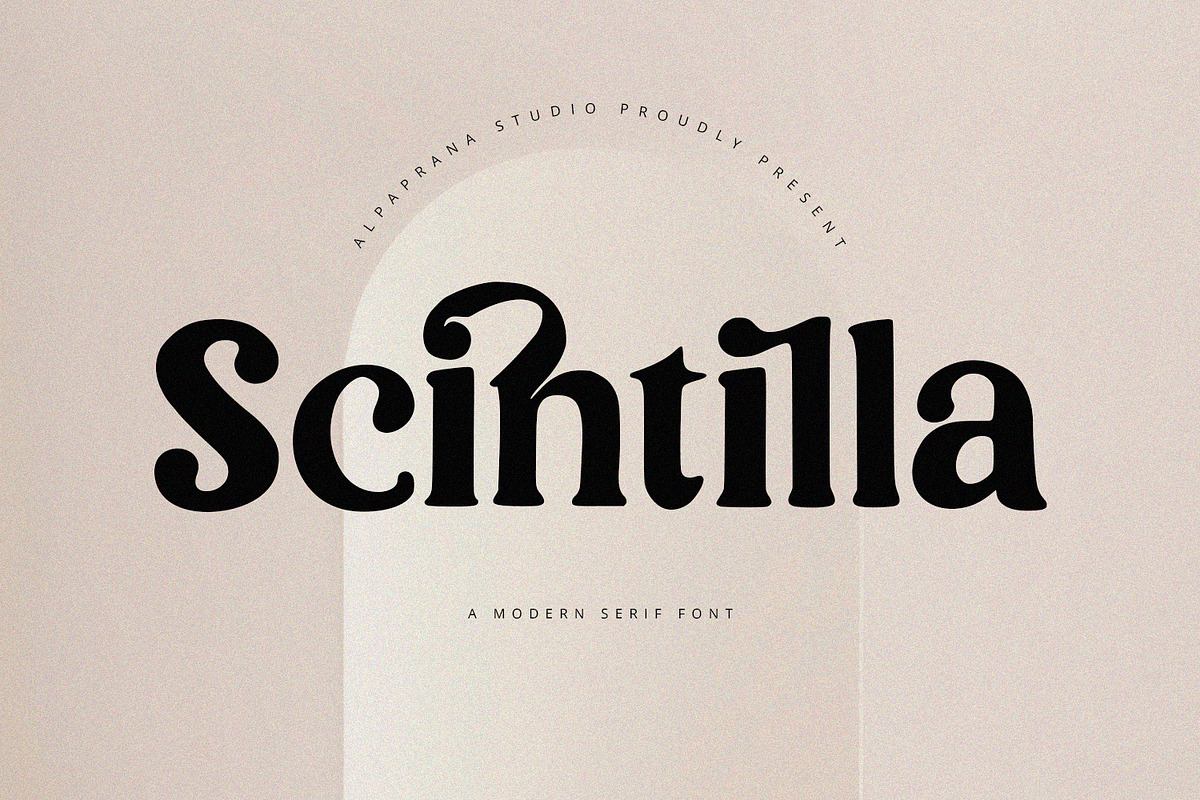
Scintilla – Modern Serif Font Free Download is a refined and contemporary typeface that blends classic serif sophistication with modern minimalism. With elegant contrast, sharp details, and clean lines, Scintilla is perfect for branding, editorial layouts, fashion campaigns, packaging, and high-end web design.
Its graceful yet bold letterforms make a powerful impression, whether used in headlines, logos, or refined body text. From luxury products to creative portfolios, Scintilla adds clarity, elegance, and confidence to every design.